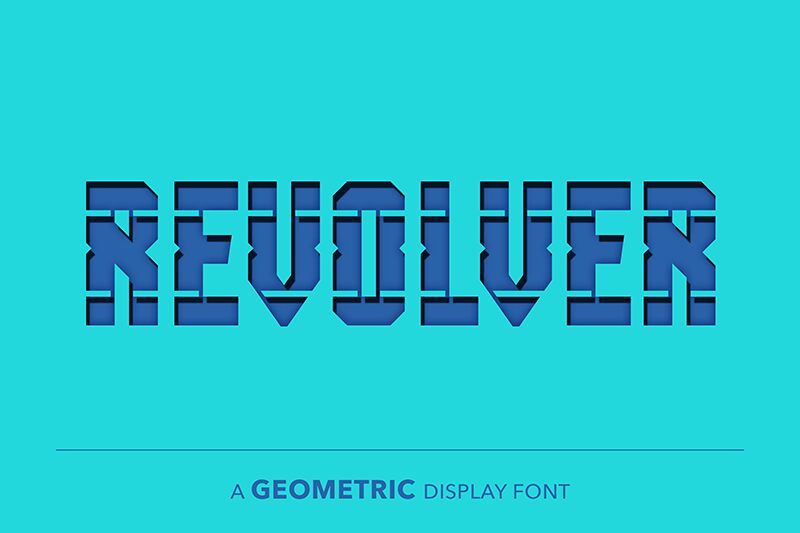
SB Revolver, designed by Craig Stainton, is the bold and extra-condensed display font that's perfect for catching attention. With its decorative geometric style, it's perfect for creating a powerful visual impact in your projects. This typeface is ideal for posters, headlines, branding, and packaging design. The sharp angles and clean lines make SB Revolver a great choice for modern and edgy designs. It's also suitable for gaming-related projects that require an impactful display font. Elevate your designs with SB Revolver and leave a lasting impression on your audience!
SB Revolver is a poster sized display font inspired by papercrafts and wood type. This font contains 121 glyphs.